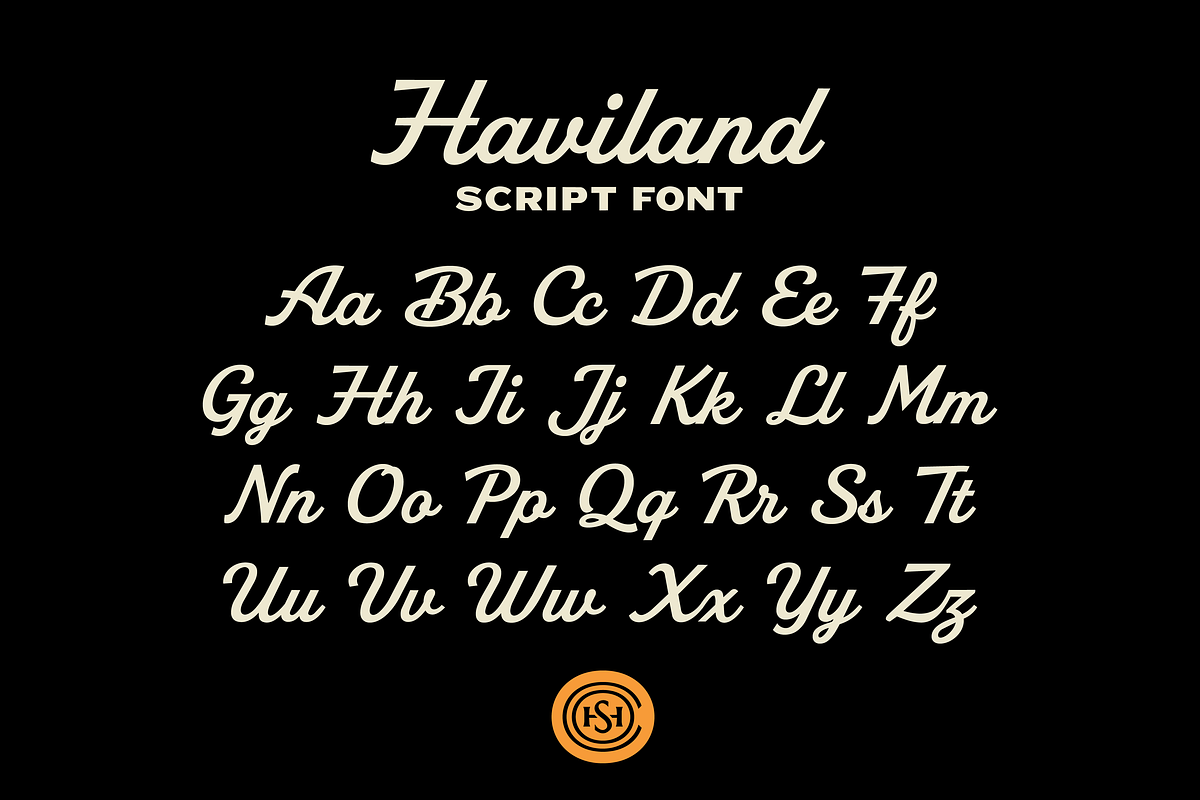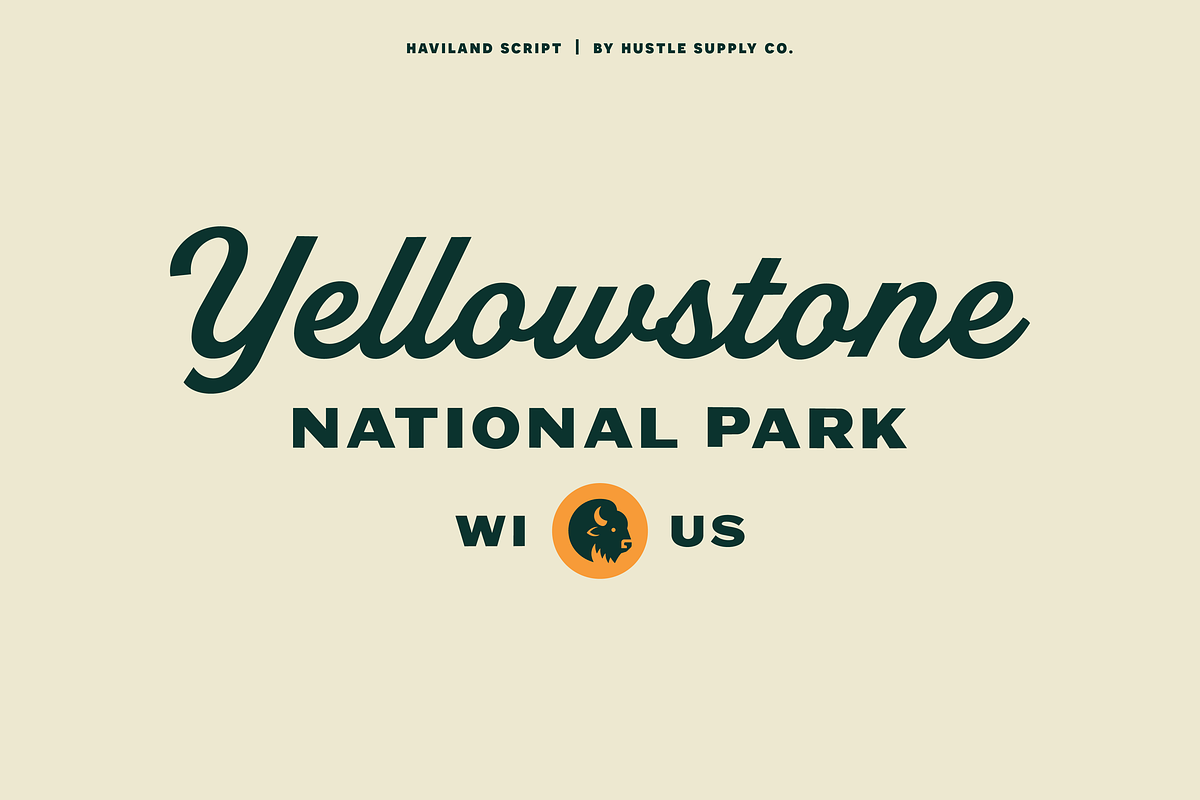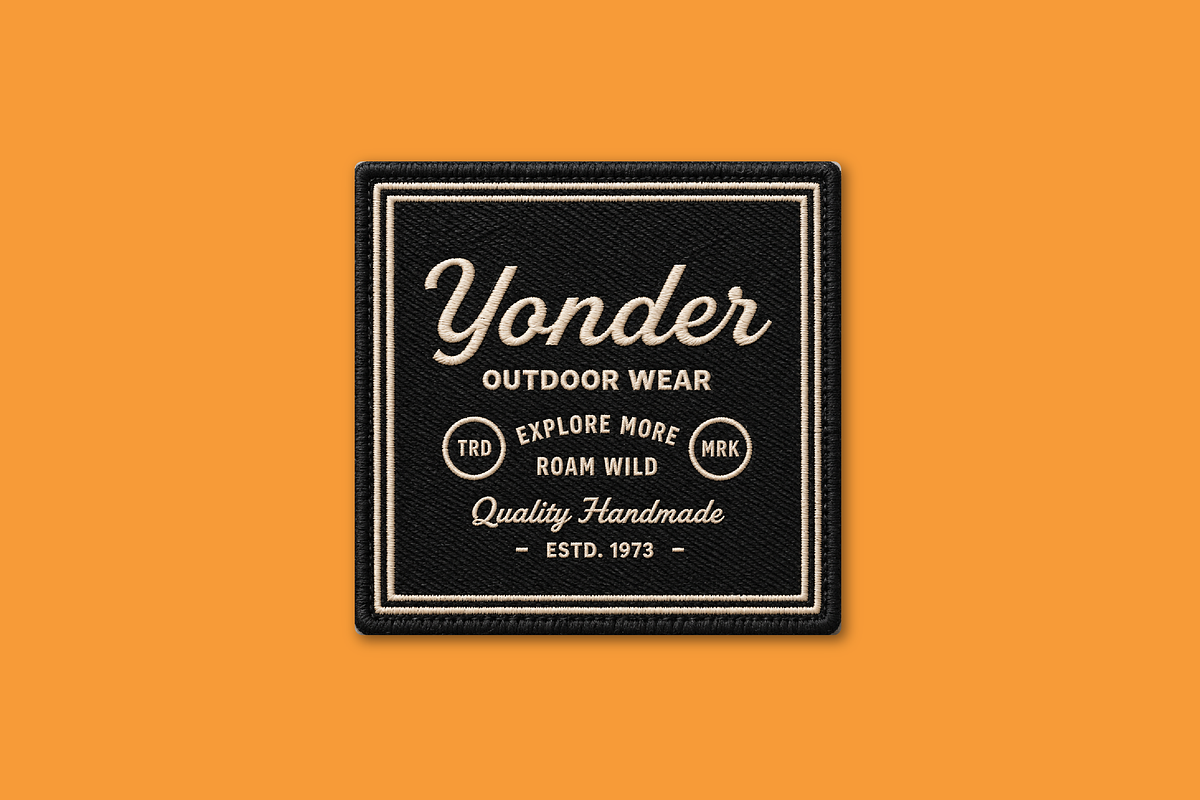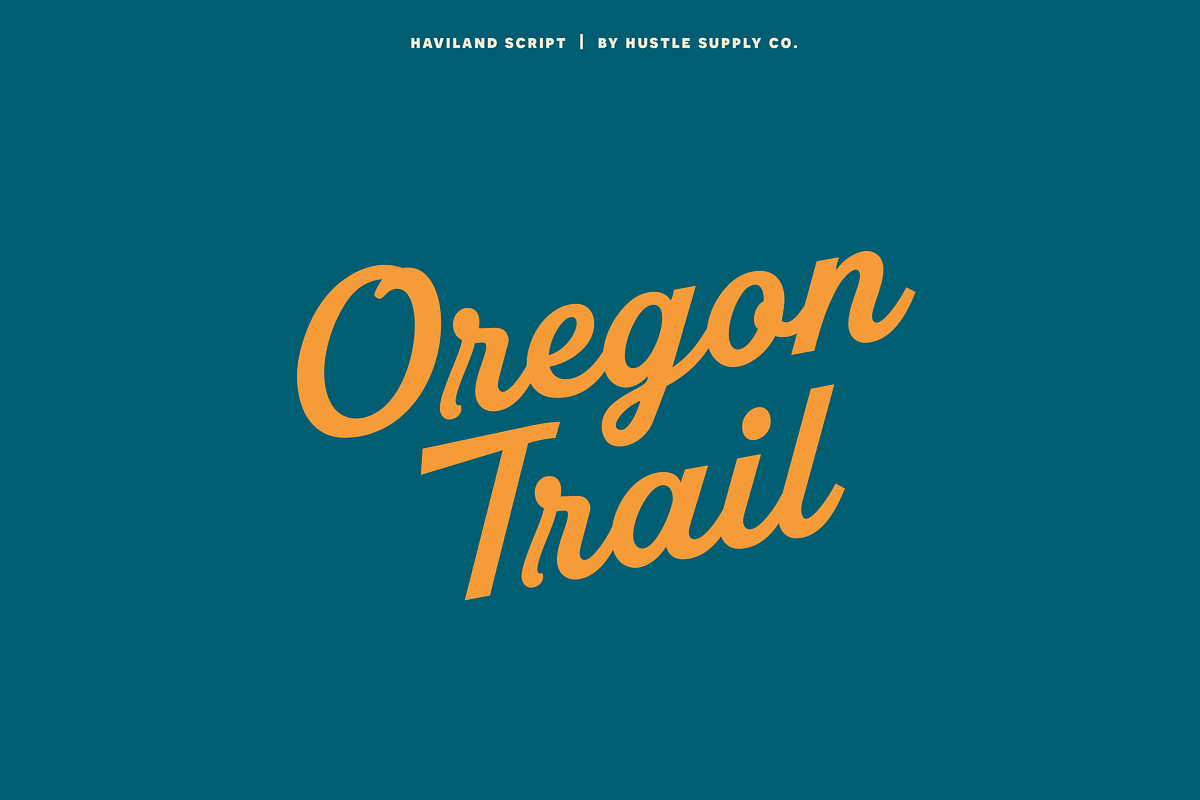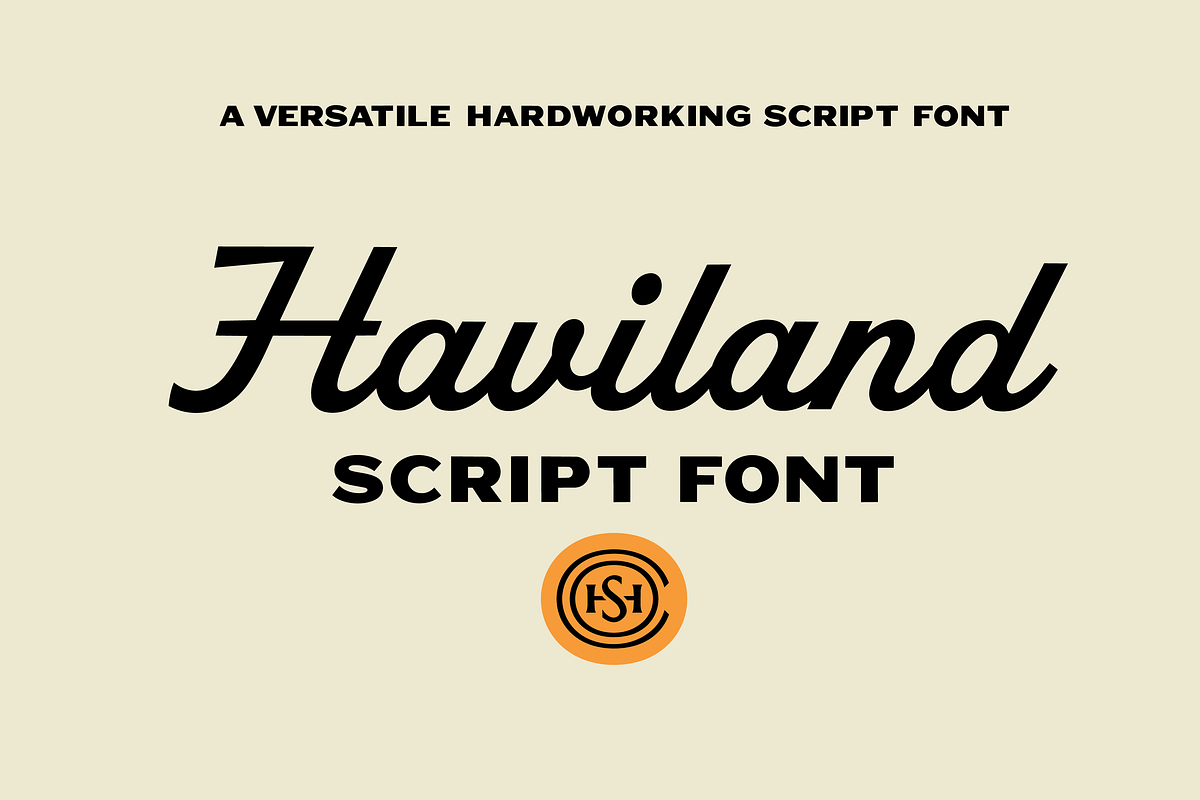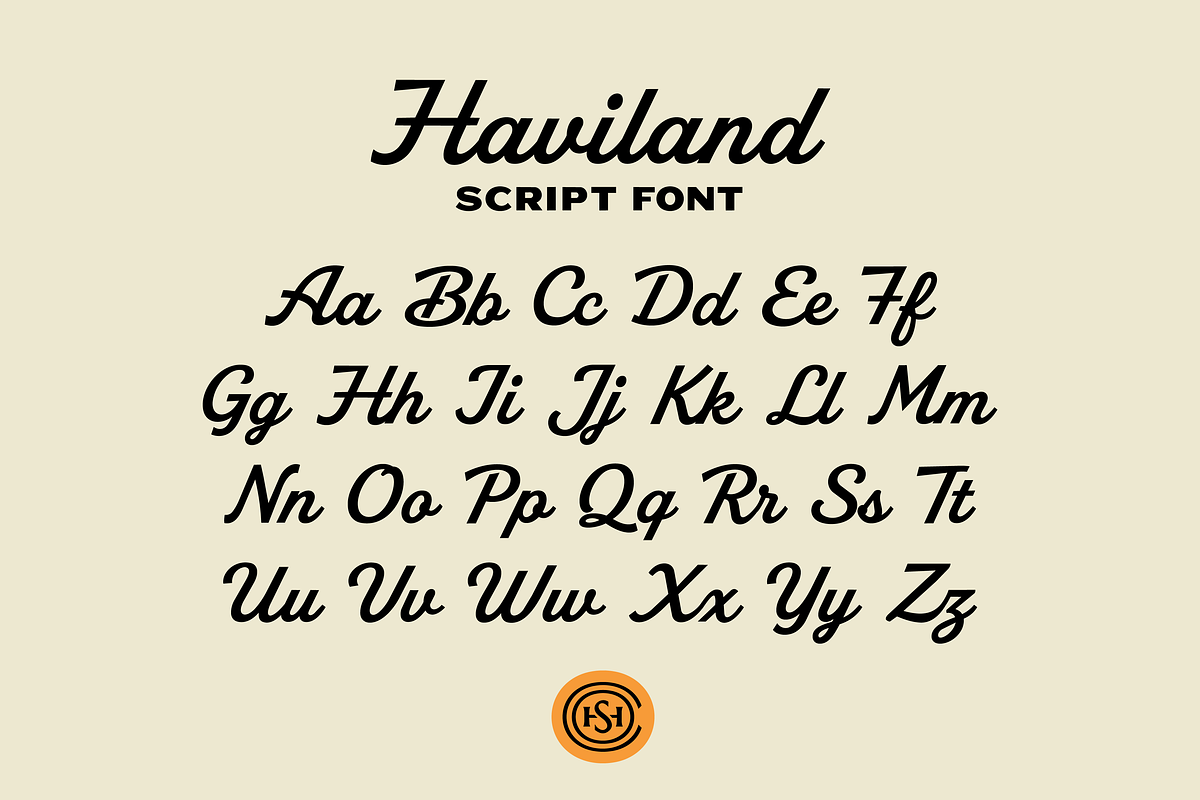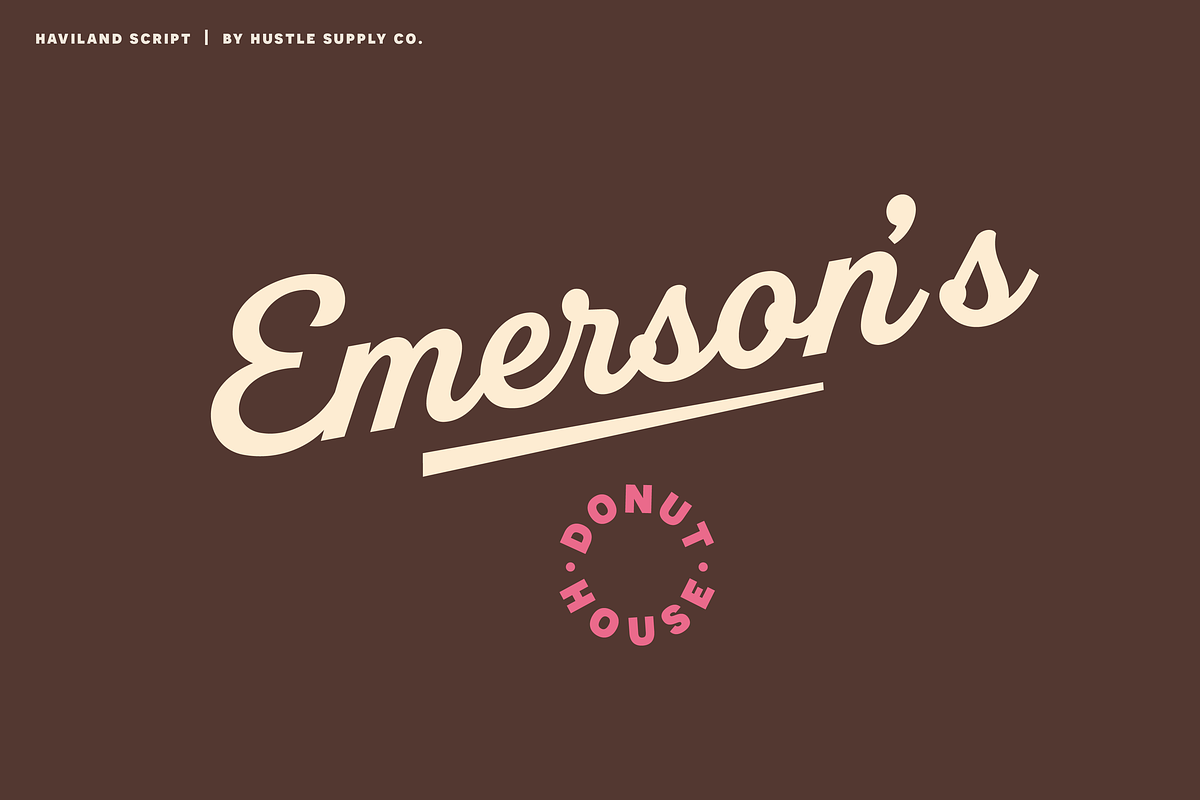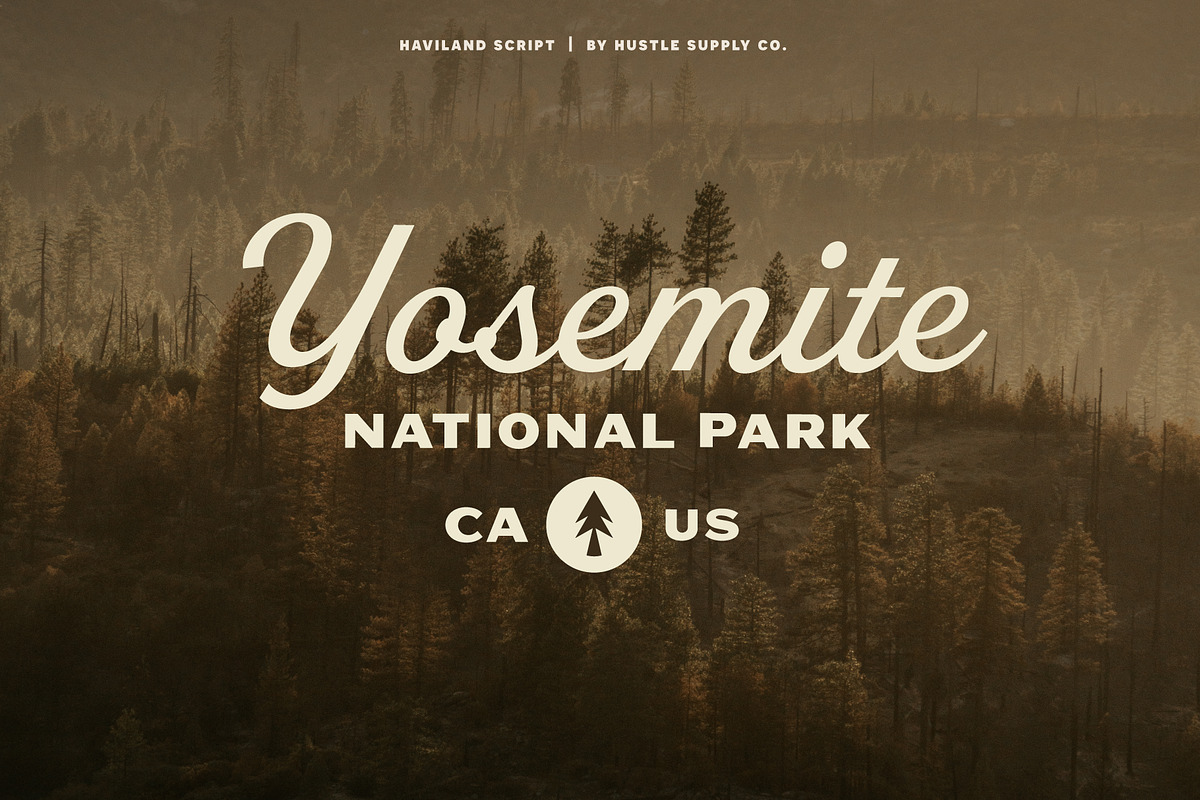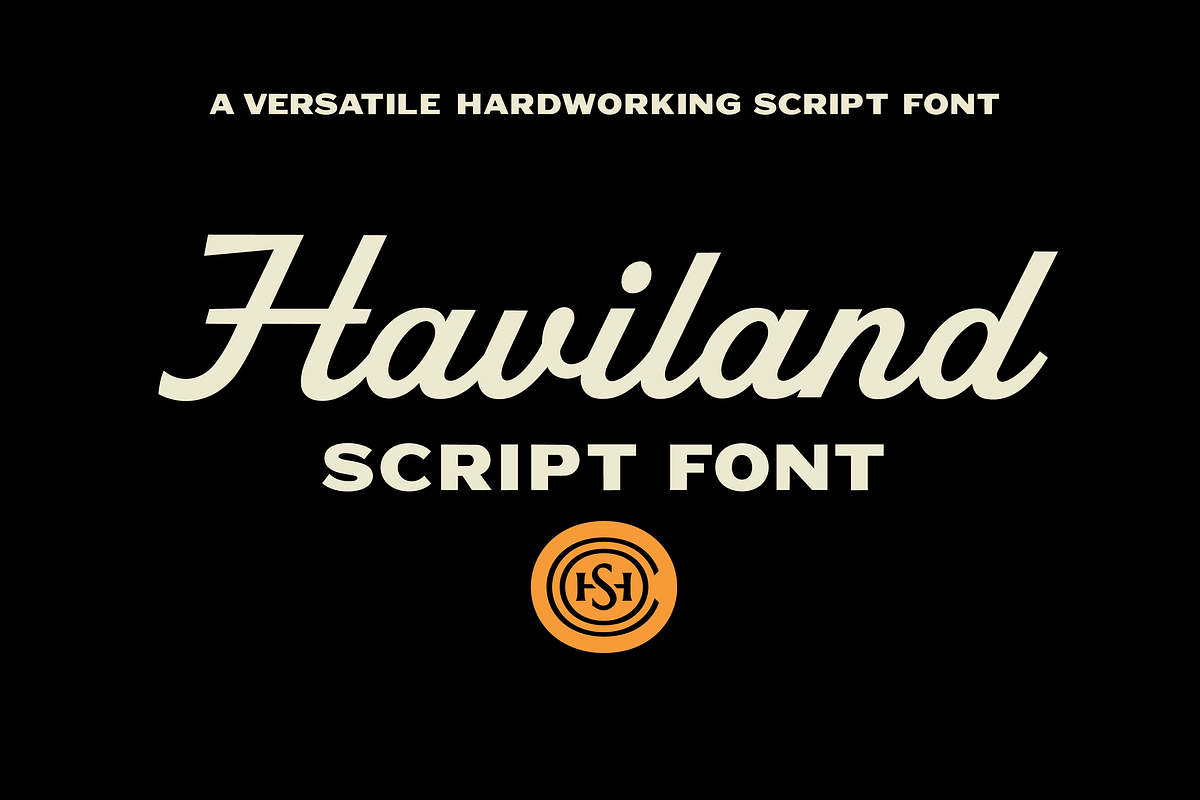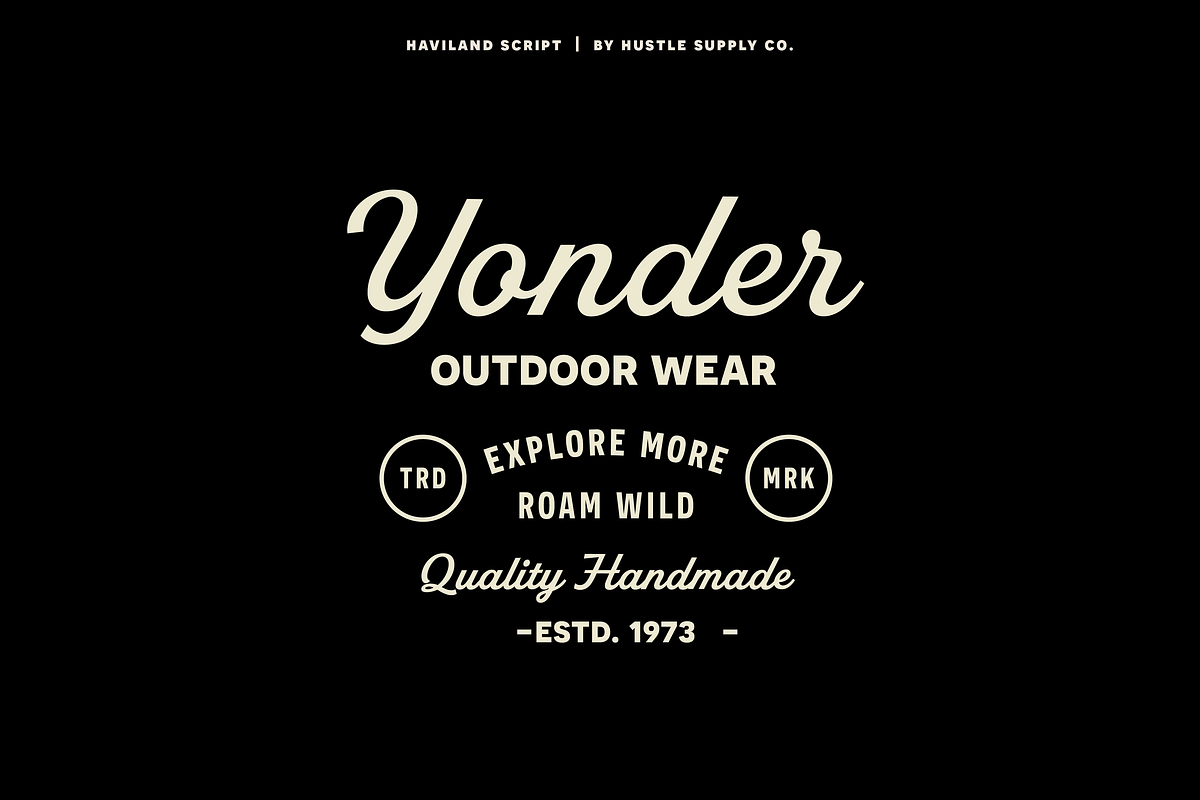
Haviland Script
Haviland is a hardworking script font inspired by vintage lettering, outdoor brands, old signage and classic Americana. It’s clean enough to feel polished, but still has enough character to give your work that hand-lettered feel.
I designed Haviland to be versatile. It works great for logos, apparel, packaging, badges, signage, posters and anywhere you need a bold script that doesn’t feel overly decorative.
Haviland comes in three subtly different weights: Light, Regular and Bold, giving you a little extra flexibility without changing the overall character of the typeface.
The font also includes Western European language support, along with punctuation, numerals and symbols.
Haviland Light
Haviland Regular
Haviland Bold
Uppercase & lowercase
Numbers, punctuation & symbols
Western European language support